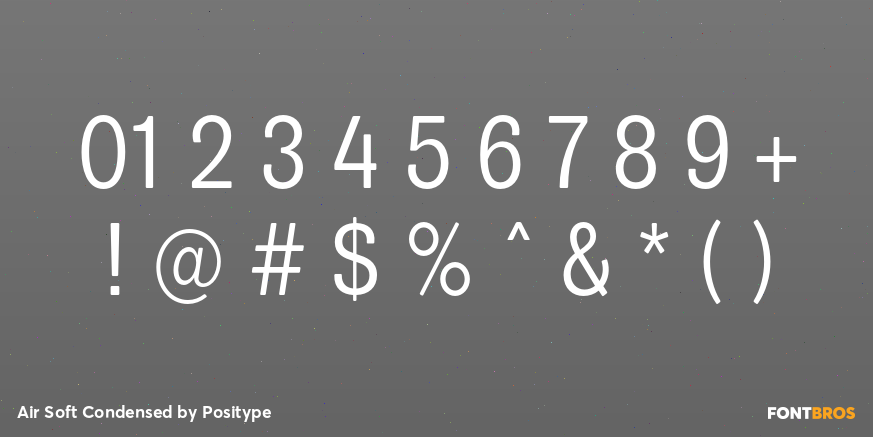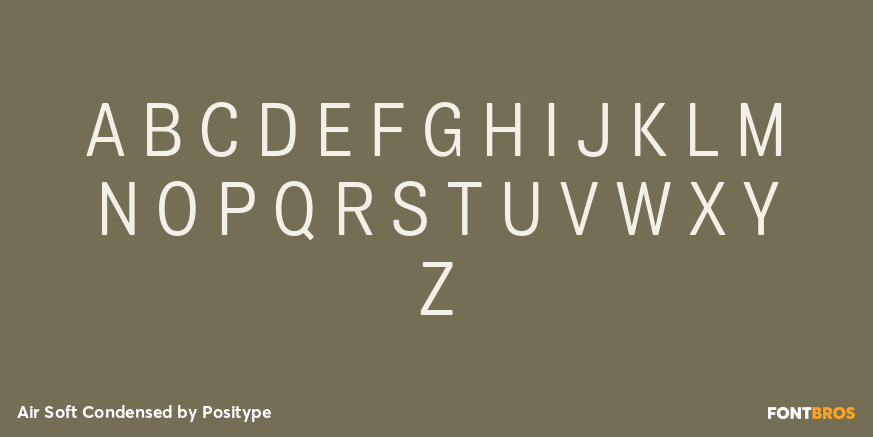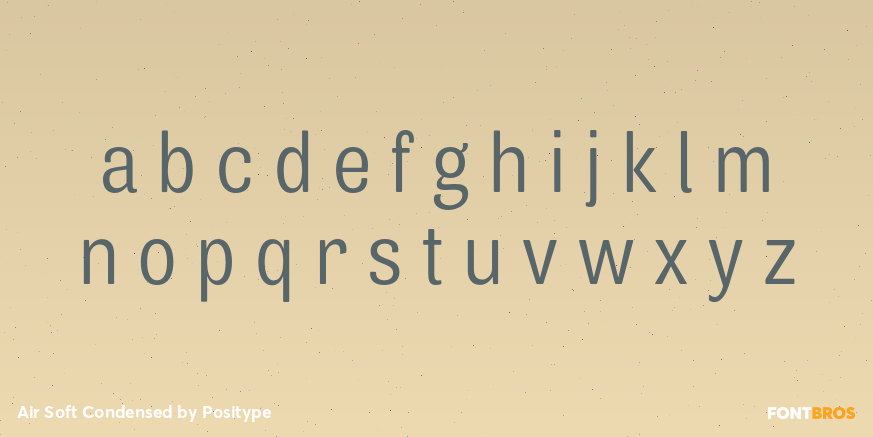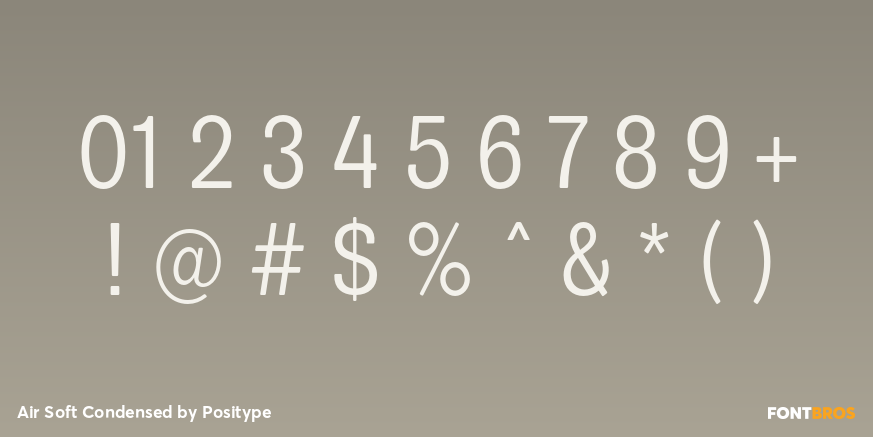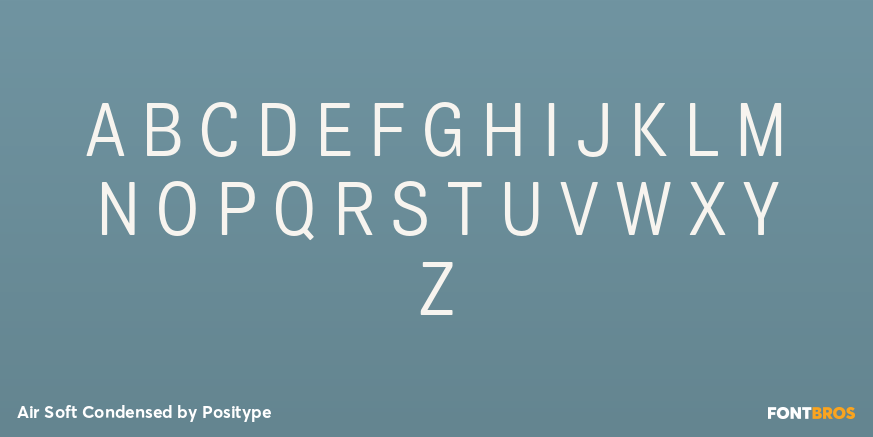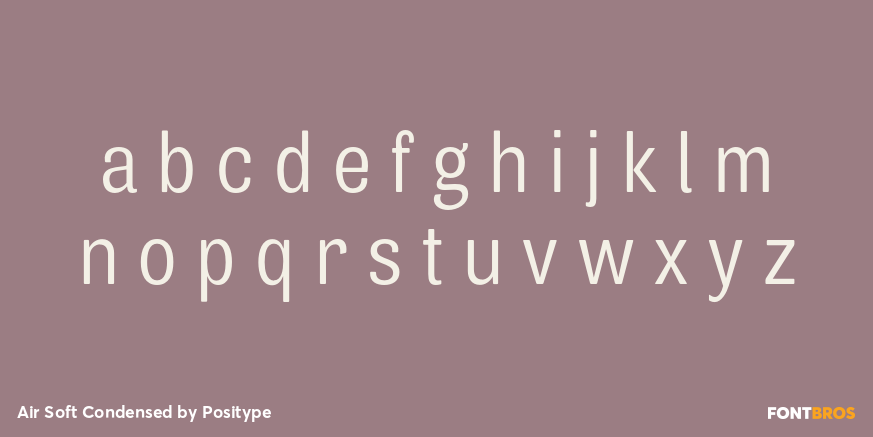
Air Soft Condensed
Air Soft's development came as a natural progression in my exploration of Air's skeleton. I wanted to see Air 'softer? in some of the test typesettings I was using during its development? so, well, I went about deriving a visual methodology to soften it. Early attempts had me producing solutions similar to all of the other ?rounded? types. I rebelled against that. Had to. Ultimately, I wanted to show that you could put a radius on a corner without rounding it to oblivion. The solution is completely subtle and very intentional along each weight/style, but drastically changes the personality of the letters when contrasted against each other. Radii used to soften the letters were not interpolated across the range of weights but were rather derived independently to balance stroke and proportion.
The Air system began as an attempt to unify the prevailing traits of German and English Grotes(que/k)s in order to make something different but familiar. I am NOT trying to reinvent Helvetica (snore), so get that out of your system (get the pun). From the onset, I intended this typeface to be a true workhorse that offers infinite options and flexibility for the user. At its core, it is the maturation of the Aaux Next skeleton I developed years ago. I worked out Aaux Next to settle my issues and love for Akzidenz. With Aaux Next, I strove to be mechanical, cold and unforgiving with it. I was single, young, cocky and it fit. Now I'm married, kids, dog and have found that I've turned into a big softy. When I look at Aaux Next (and have for the past few years) I see another typeface trying to eek out. I wanted it to avoid the trappings of robotic sans, quick tricks and compromises. The typeface's DNA needed to be drawn and not just generated on a screen ? so I set aside a year.
I love type. I love working with type. I hate when my options for a slanted complement is only oblique or italic. I set out to produce both to balance usage ? there are more than enough reasons to prepare both and I want the user to feel free to consciously choose (and have the option to choose) the appropriate typeface for print, web, etc. That flexibility was central to my decision-making process. The Oblique is immediate and aggressive. The Italic was redrawn at a less severe angle with far more movement and, as a result, is far more congenial when paired with the Uprights.
Condensed and Compressed. Yep, why not? I know I would use them.
There are nine weights currently available. The logical progression of weights and the intended flexibility demanded I explore a number of light weights and their potential uses ? this has produced a number of ?light without being too light? options that really work based on the size. The result is a robust 81-font superfamily that is functional, professional, and highly legible without compromising its personality. Pair that with over 900 characters per font that includes ligatures, discretionary ligatures, stylistic alternates, fractions, proportional/tabular lining and proportional/tabular oldstyle figures, numerators, denominators, ordinals, superiors, inferiors, small caps, case-sensitive functionality and extensive language support and you have a versatile superfamily well-suited for any project.